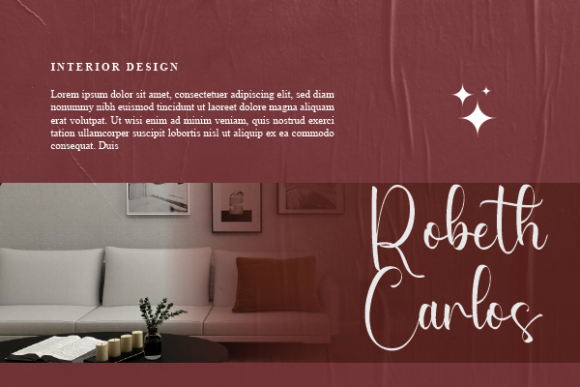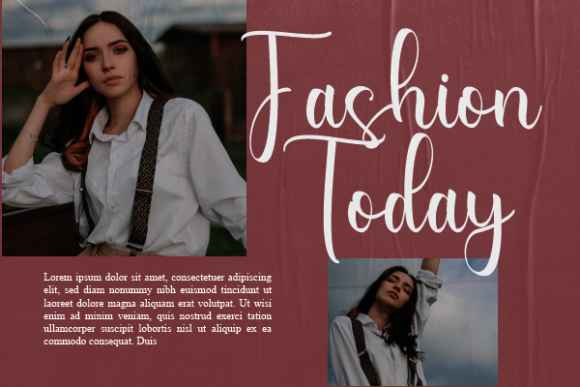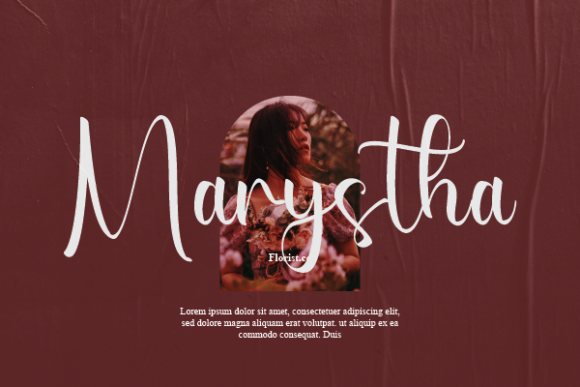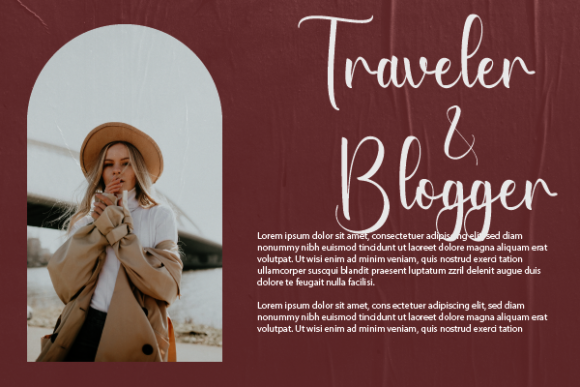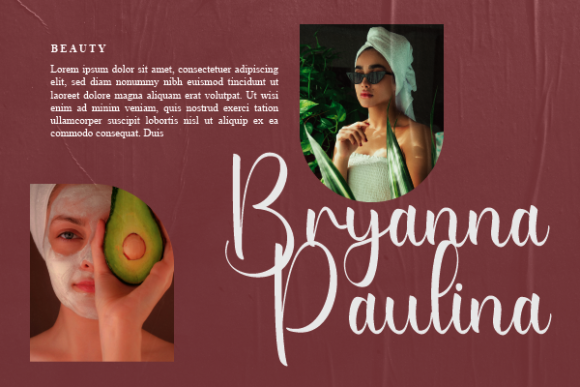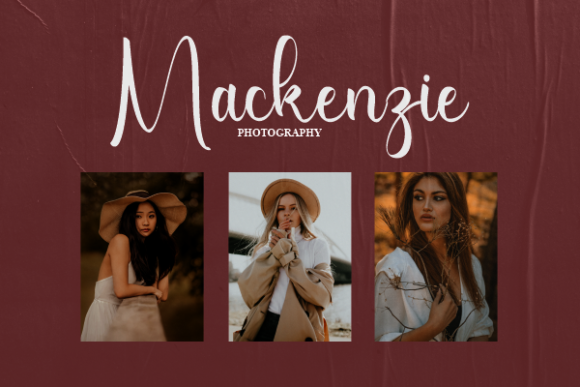
Introduction to Churchil Penelope Font
Remember the moment when you finally found the perfect font to elevate your creative project? It’s like stumbling upon a hidden treasure that makes all the difference in the world. For designers, this moment is a game-changer. It’s what sets a mediocre design apart from a stunning masterpiece. And for those who have been searching for that special something, we’re excited to introduce you to the Churchil Penelope Font.
This gorgeous and lovely script font is a design resource that will be a wonderful asset to your font library. With its high-quality design and transparent background, Churchil Penelope Font has the potential to enhance any creation, making it a valuable addition to your toolkit. Whether you’re working on a logo, a wedding invitation, or a social media post, this font is sure to bring a touch of elegance and sophistication to your design. And the best part? You can download it for free, making it a must-have for any designer looking to elevate their creative projects.
Key Features of Churchil Penelope Font
- Unique, elegant script font design ideal for creative projects and design resources.
- Supports a wide range of languages, including Latin-based alphabets and Cyrillic scripts.
- Perfect for use in various design projects, such as wedding invitations, greeting cards, and branding materials.
Honest Review: Churchil Penelope Font
I recently had the opportunity to use the Churchil Penelope Font in a creative project, and I must say it was a great experience. The font is a high-quality design resource that can add a touch of elegance to any text-based element.
Here are some of the things that worked well: ✨
- Beautiful calligraphy-style script that’s perfect for headings and titles
- Clear and easy-to-read typography, even at smaller font sizes
- Transparent background, making it easy to use in any design project
However, I did encounter some limitations: ⚠️
- Not ideal for body text, as it can be quite ornate and distracting
- Not a great choice for digital displays, as the font may not render well at small sizes
Overall, I was impressed with the Churchil Penelope Font, and I would definitely recommend it for design projects where a high-quality, elegant font is needed. Just be sure to use it judiciously, as it can be quite bold and eye-catching.
How to Use Churchil Penelope Font
Introduction to Churchil Penelope Font
The Churchil Penelope Font is a high-quality design resource perfect for any creative project. With its elegant and sophisticated style, this font is ideal for various applications, including branding, marketing materials, and digital designs.
Tips for Getting the Most Out of Churchil Penelope Font
To get the most out of the Churchil Penelope Font, use it in conjunction with other design elements, such as images and graphics. Experiment with different font sizes, colors, and styles to create visually appealing designs.
The Churchil Penelope Font is perfect for various use cases, including:
- Marketing materials, such as brochures and flyers
- Digital designs, such as social media graphics and website headers